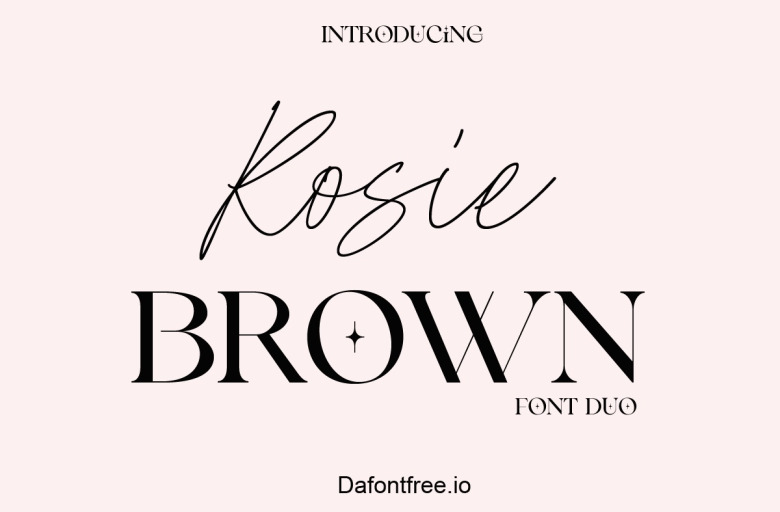
Rosie Brown Font
Rosie Brown Font Duo certainly provides an eclectic pairing of typefaces. The crisp yet friendly serif calls out carefully crafted headlines while the loose looping script whispers warmly handwritten notes. Whether crafting an invitation to nourish community or branding to evoke nostalgia, this versatile twosome tenderly tells your tale through a modern mélange of metropolitan moxie and pastoral poetry.
From logos leaping off apparel to ads awakening interests with wit and wonder, Rosie Brown Font Duo deftly lends visual voice to each venture with vivacious variation and tasteful touches of tradition.